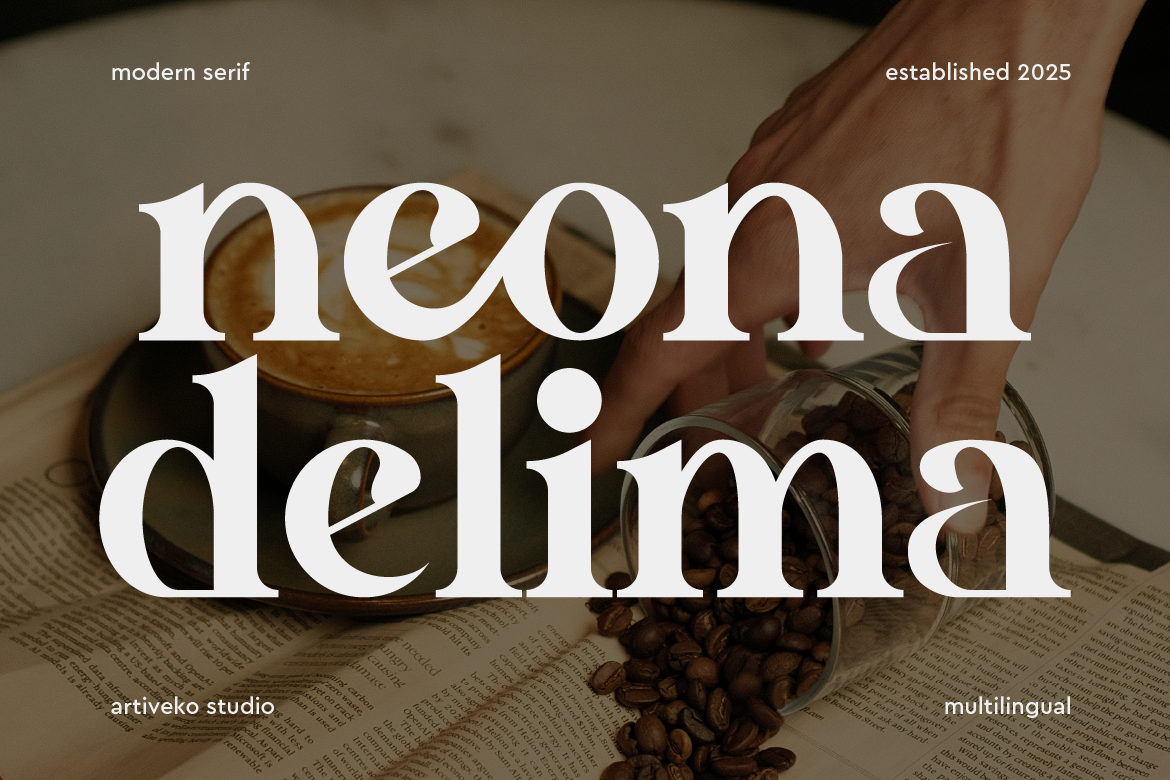
- Neona Delima Premium Serif Font
Neona Delima is a sophisticated serif font designed to exude elegance, class, and timeless beauty. With high-contrast strokes, graceful curves, and refined proportions, this typeface is perfect for luxury branding, editorial design, fashion packaging, wedding invitations, and upscale logo creation.
Each letterform is crafted with meticulous attention to detail, balancing modern minimalism with classic charm. Neona Delima delivers exceptional readability while maintaining a luxurious and artistic tone — ideal for projects that seek to evoke refinement and prestige.
The font includes uppercase and lowercase letters, numerals, punctuation, multilingual support, ligatures, and stylistic alternates, giving designers full creative flexibility to craft distinctive and elegant compositions.
Transform your design into a statement of elegance with Neona Delima — a premium serif font that embodies sophistication, beauty, and timeless style.